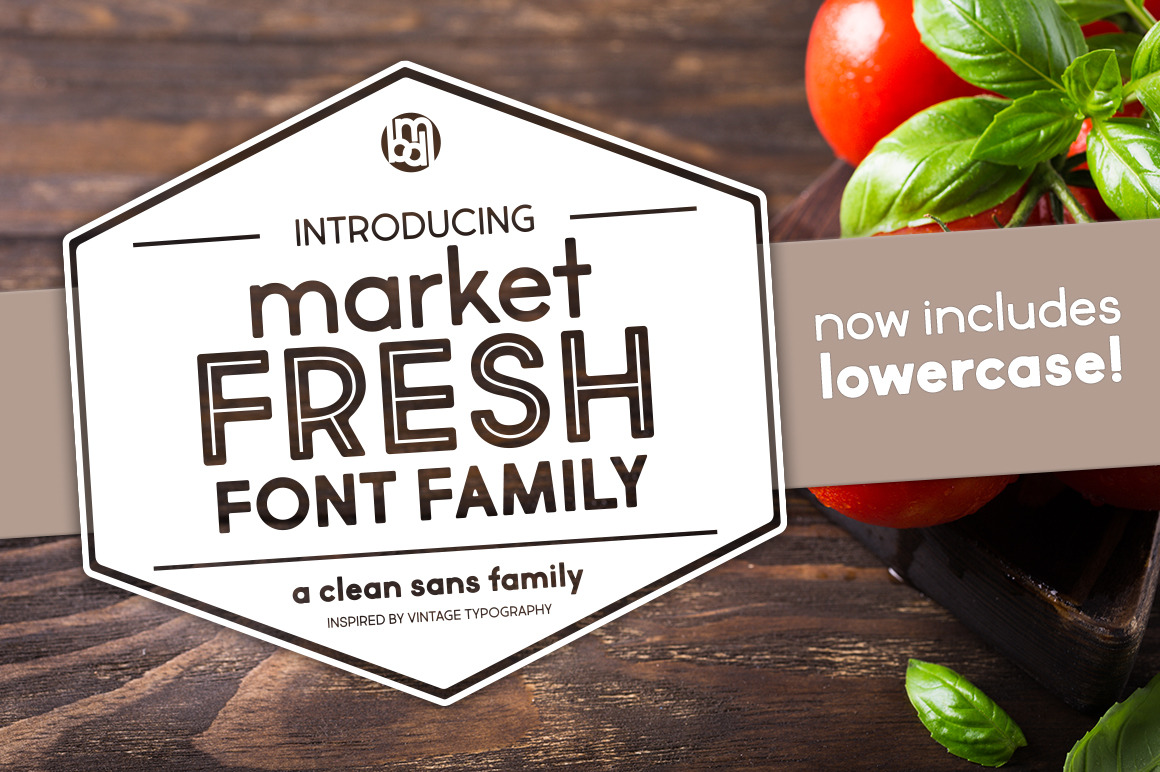
Market Fresh Font Family
The Market Fresh Font Family is a set of open, clean sans inspired by old-style retro headlines. Includes over 500+ characters including Latin, Greek, Cyrillic & more.
Originally designed as all-caps fonts, Market Fresh has been updated and now includes a standard versions with lowercase, in addition to the original all-caps versions.
The font family currently includes: